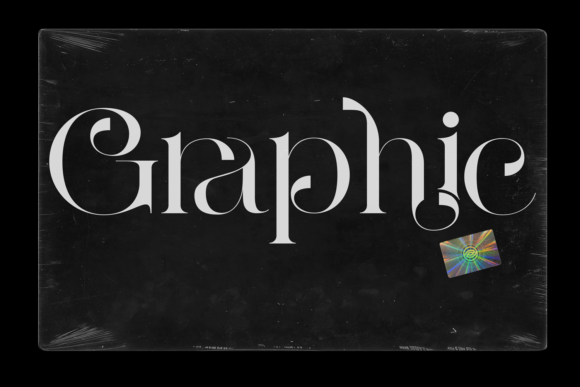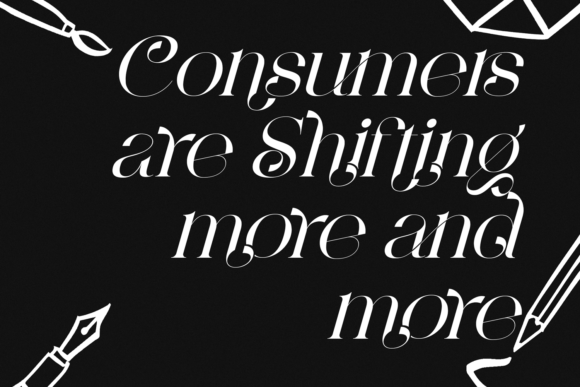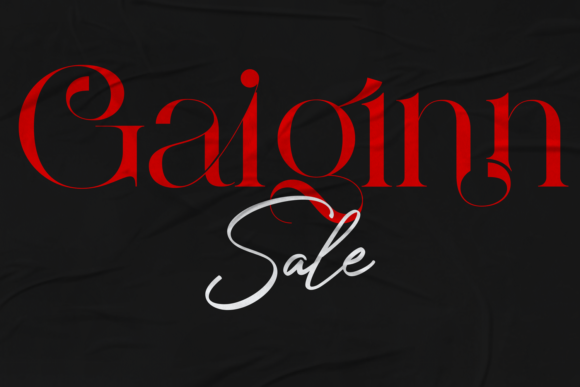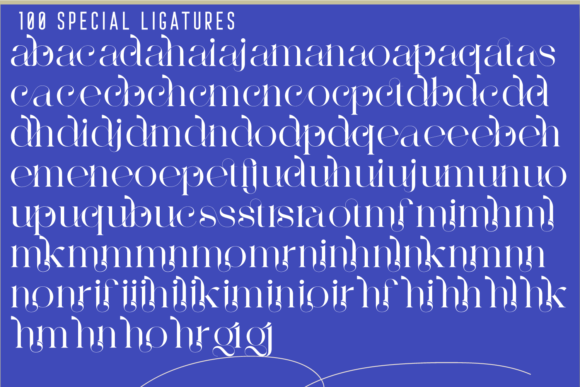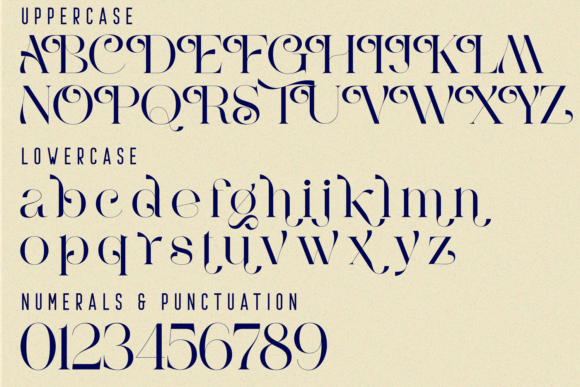
Introduction to Citation Font
Citation Font is a serif modern and classic typeface that has its own unique style & modern look.
It was created to fulfill your need to create a charming and cool design Equipped with many unique ligatures in the font that will make your designs different from other designs.
Citation Font offers exceptional quality and versatility, making it a valuable addition to your design toolkit. Whether you’re creating for personal projects or commercial use, Citation Font delivers professional results.